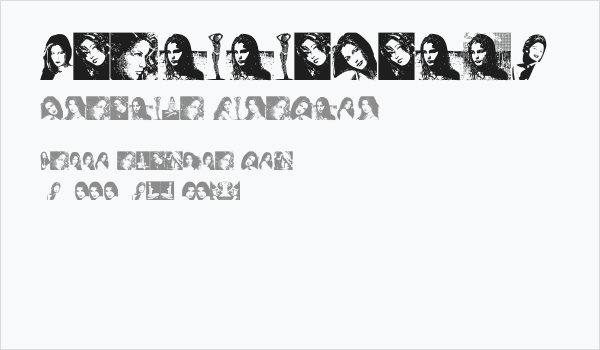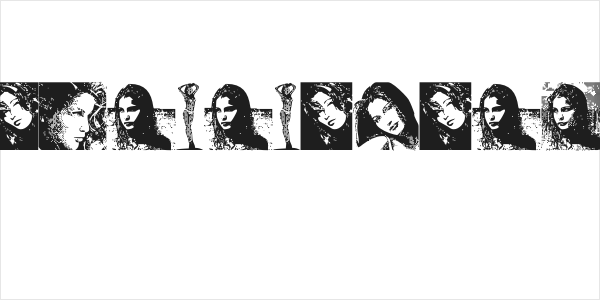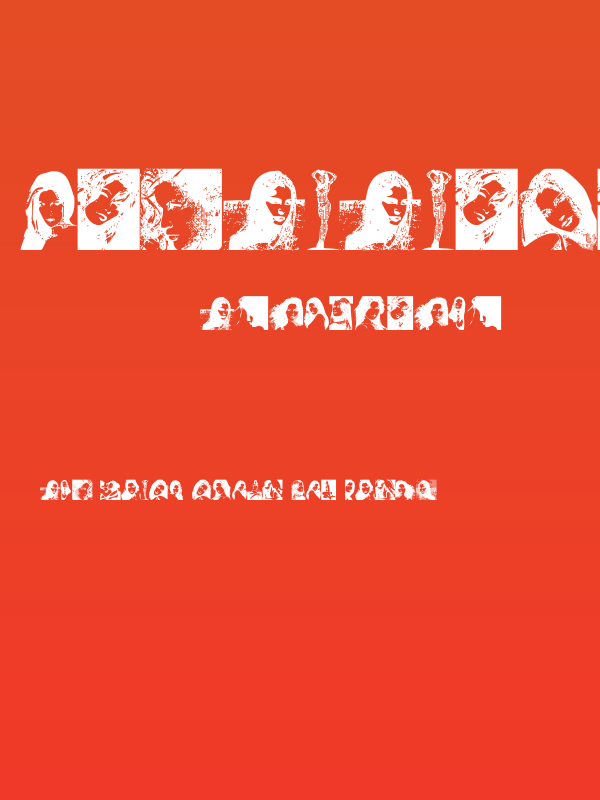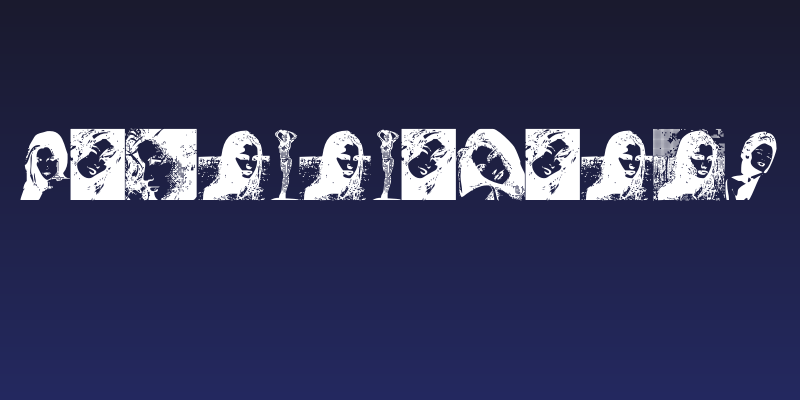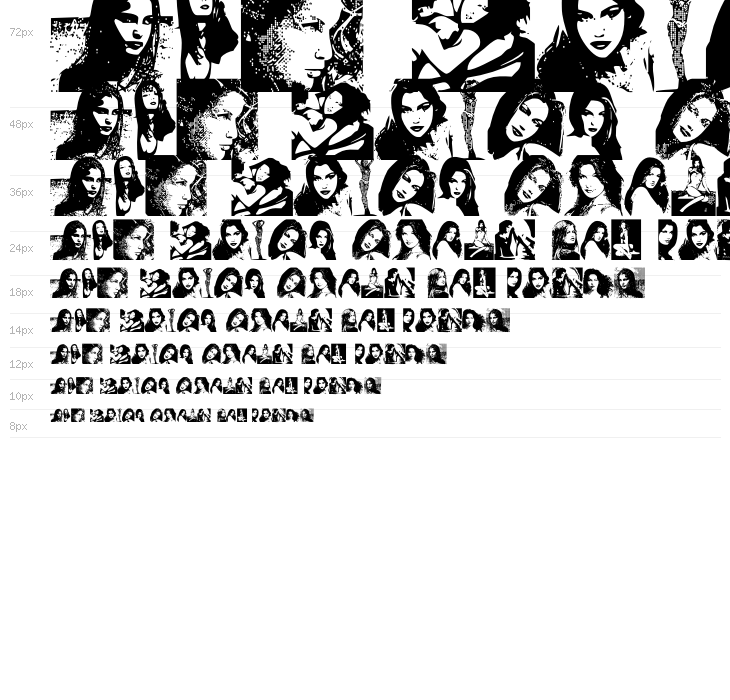
LaetitiaBats1 Font
LaetitiaBats1 Description
A highly decorative display typeface featuring black-and-white photographic or illustrated portraits of women within each character block, creating a collage-like effect. Each glyph is a unique image, making the set visually striking but not suitable for traditional text readability.
| Overall Style | Decorative, Artistic, Collage |
| Use Case | Headlines, Logos, Posters, Artistic projects |
| Proposed Projects | Posters, album covers, event flyers, art projects, editorial headlines, and any design requiring a bold, artistic statement. |